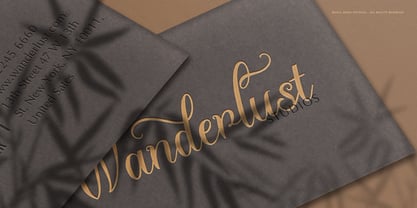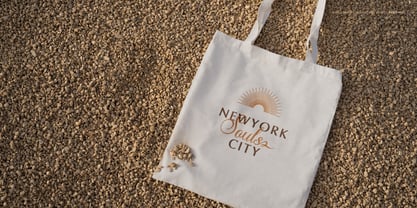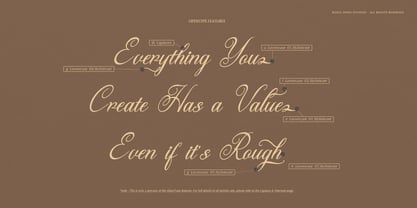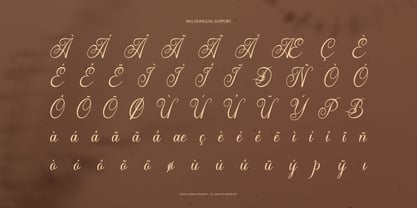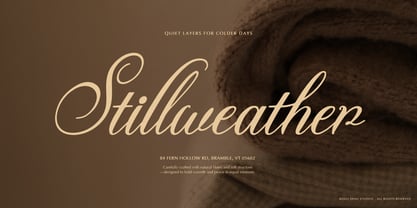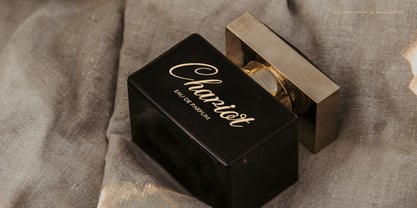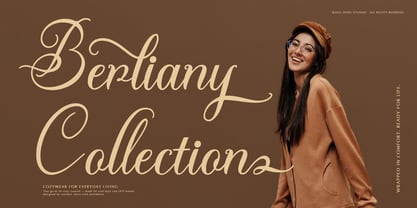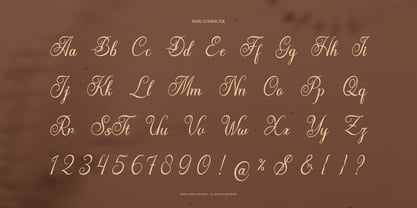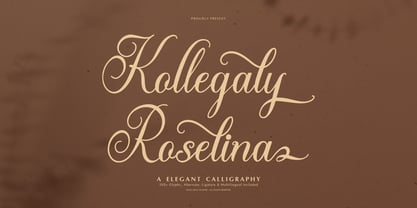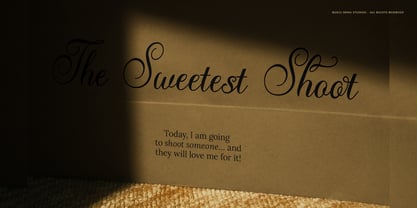
Kollegaly Rosalina
The Kollegaly Rosalina Font Family was designed by Dede Nugraha and published by Denustudio. Kollegaly Rosalina contains 2 styles and family package options. More about this family
Kollegaly Rosalina | Elegant Calligraphy, from Denustudios, suitable for any projects such as: logos, branding projects, homeware designs, product packaging, mugs, quotes, posters, shopping bags, t-shirts, book covers, name card, invitation cards, greeting cards, label, photography, watermark, special events, and all your other lovely projects that need Elegant Calligraphy a taste.
• Regular and Italic
• Alternate and Ligature